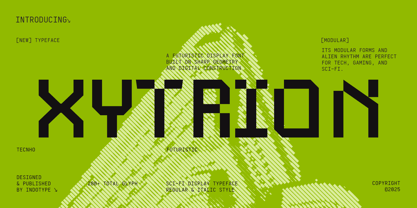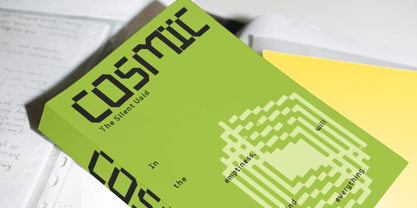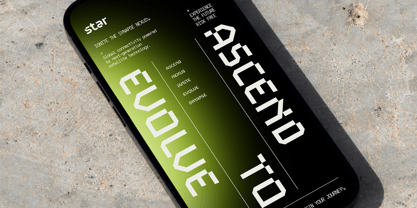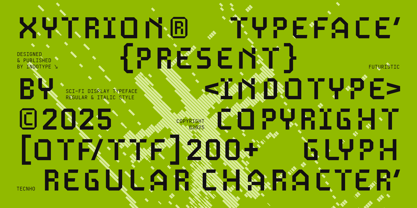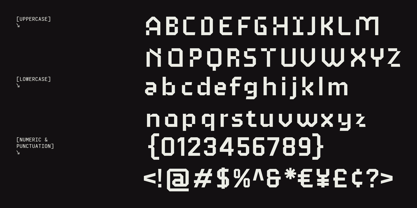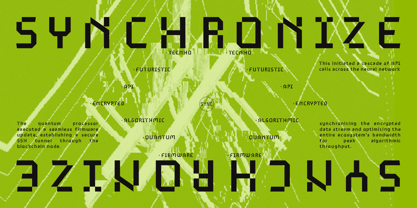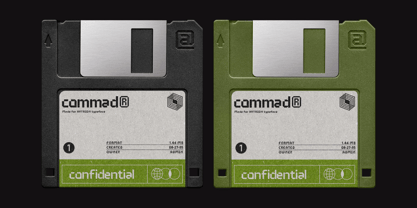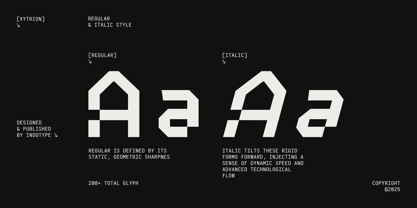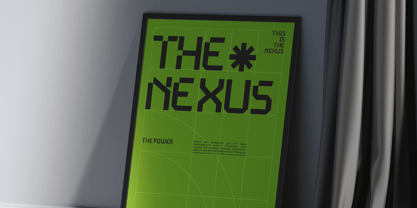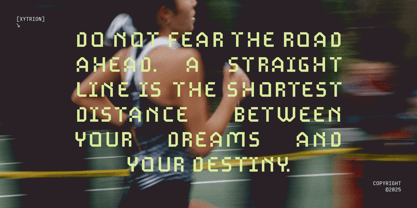
IT Xytrion
by Indotype
The IT Xytrion Font Family was designed by Dede Kurniawan and published by Indotype. IT Xytrion contains 2 styles and family package options. More about this family
Xytrion is a cutting-edge display typeface that catapults your designs into the future. Built on sharp geometry and digital construction principles, this modular font features an otherworldly rhythm that perfectly captures the essence of advanced technology and sci-fi aesthetics. With its alien-inspired letterforms and systematic design approach, Xytrion creates an immediate visual impact that feels both futuristic and functional. The family includes 200+ total glyphs across Regular and Italic styles, providing versatility for creating dynamic tech interfaces, gaming titles, and science fiction branding. Its modular nature allows for seamless integration in digital environments while maintaining striking presence in print. Xytrion is the ultimate choice for projects that demand a forward-looking, technological edge with uncompromising style. • Ideal for: Tech Interfaces, Gaming Titles, Sci-Fi Branding, Cyberpunk Designs, Futuristic Logos, Digital Platforms • Classification: Display, Sci-Fi, Modular, Geometric, Futuristic • Attributes: Sharp, Technological, Alien, Digital, Advanced, Cutting-edge
Designers: Dede Kurniawan
Foundry: Indotype